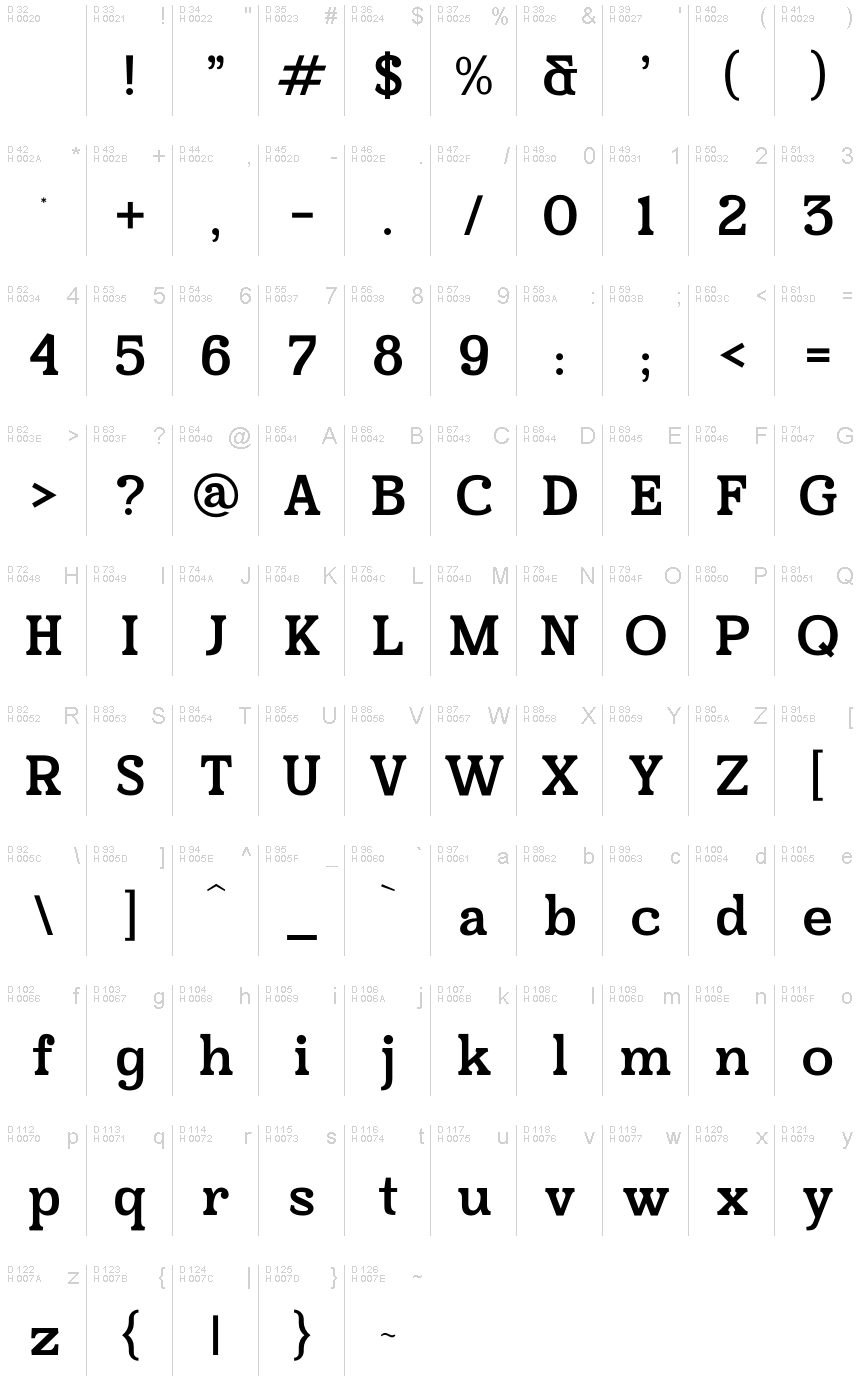
Dhrifted
Dhrifted, a captivating serif font crafted by Storytype Studio, exudes a sense of timeless elegance and refined sophistication. With its harmonious balance of delicate serifs and bold strokes, this typeface emanates a compelling visual presence that captivates the eye. The intricate interplay of fluid curves and sharp angles creates a distinct personality, evoking a sense of narrative and inviting the reader to explore its depths.
Dhrifted's versatility shines through its ability to seamlessly adapt to a wide range of design applications, from editorial layouts and branding initiatives to product packaging and web interfaces. Its versatile nature allows it to command attention and establish a strong sense of identity, making it an ideal choice for projects that require a touch of timeless charm and unwavering sophistication.